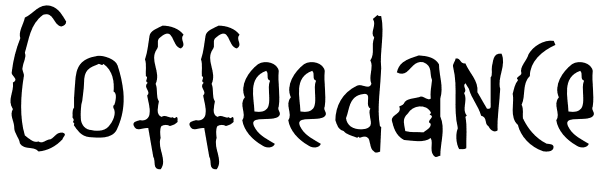
Coffeedance
Shortly after the creation of Chauncy Deluxxe, Chank realized that he needed a condensed font to go with the regular version of his handwriting. The solution was Coffeedance, a fun, light, dancing, dandy handmade font. Makes me think of frozen...